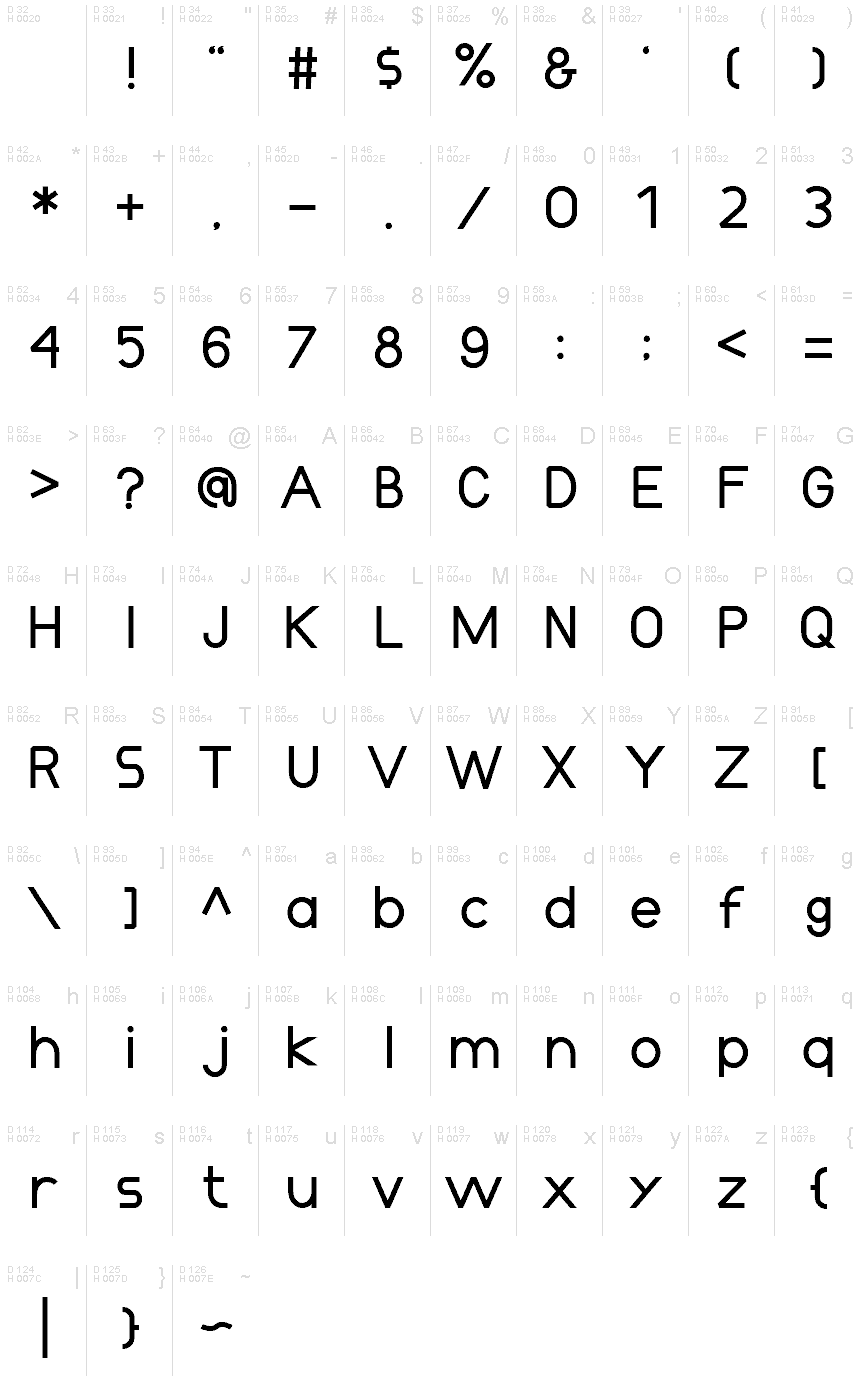
GrowSans
GrowSans font by Muhammad Yafinuha is a clean sans serif font with a modern and geometric style. It has minimal elements, and like many minimalistic fonts puts to scale its design through relative sizing of its elements. The typeface looks professional, friendly, and visually stable at the same time because of this uniformity in style.
The free sans serif font is versatile enough for personal and professional use: in branding, advertising, social media posts, headlines and body copy. You can also combine it with other resourceful tools on business cards, print designs for magazines or stationery. Use it on apps or websites to influence or encourage certain actions.